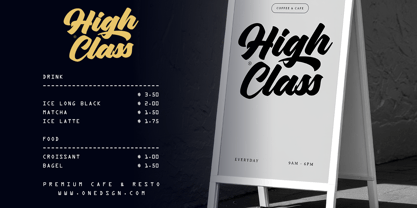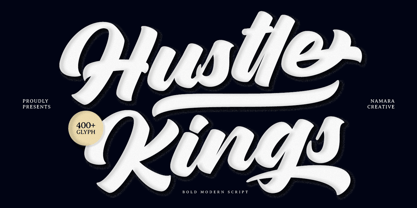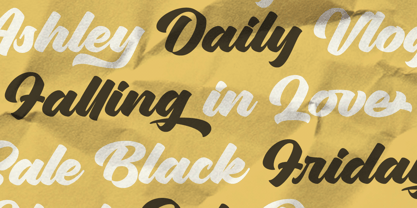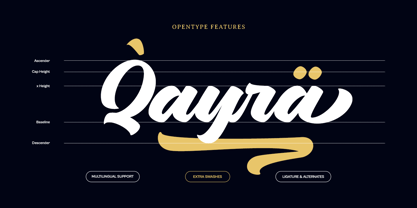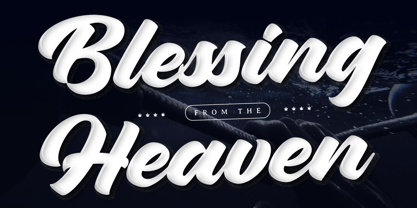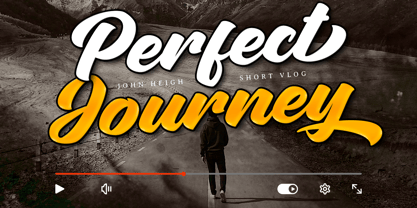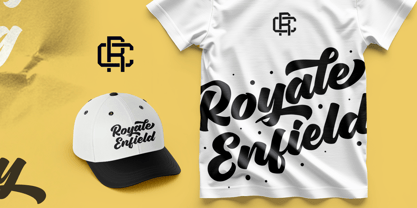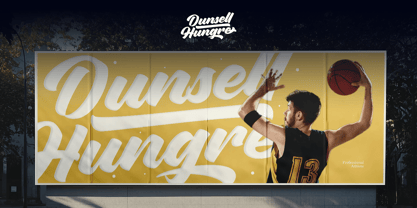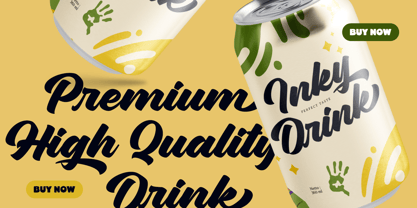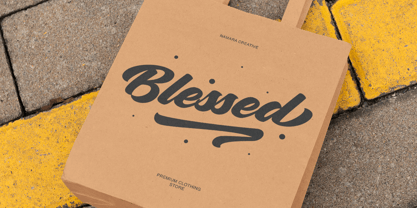
Hustle Kings
by Namara Creative Studio
The Hustle Kings Font Family was designed by Eep Apringga and published by Namara Creative Studio. Hustle Kings contains 1 styles. More about this family
Hustle Kings is a bold modern script font designed to deliver strong visual impact with smooth, confident strokes. Featuring thick curves, dynamic swashes, and a sporty handwritten feel, this font blends classic script elegance with modern branding power. Crafted for versatility, Hustle Kings works perfectly for logos, sports branding, streetwear, apparel, posters, packaging, advertising, social media graphics, and headline typography. Key Features : Bold Modern Script Design : A strong, contemporary script style with thick strokes and smooth curves, designed to deliver high visual impact while remaining clean and readable. 400+ Glyphs : Includes an extensive character set that allows flexible typographic compositions for branding, advertising, and display projects. Ligatures, Alternates & Multilingual Support : Smart and multiple (ligatures & alternates) give creative freedom of expressions, also supports a wide range of Latin-based languages. Extra Swashes : Decorative swashes add elegance and movement, perfect for logos, packaging, posters, and premium branding projects. Ideal For : Logo & brand identity Streetwear, merchandise and sports branding Posters & billboards Social media & marketing content Packaging & labels Headlines & display typography Its bold letterforms maintain excellent readability while adding personality and movement, making Hustle Kings ideal for both digital and print applications. Whether you’re designing a powerful logo or an eye-catching billboard, this font delivers confidence, energy, and premium quality.
Designers: Eep Apringga
Foundry: Namara Creative Studio